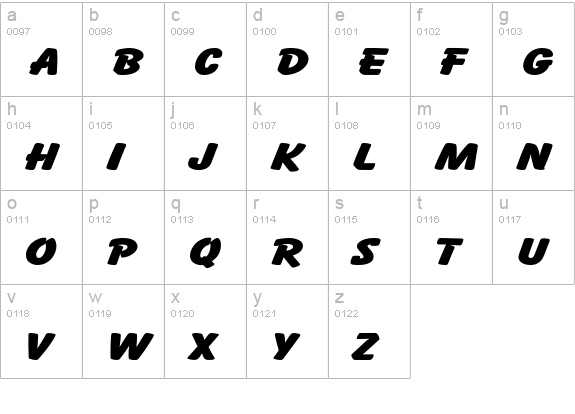
Cartoon Expanded Font Details
Cartoon Expanded is a distinctive, extended-width variant in the Cartoon typeface family \xE2\x80\x94 well suited to design and typography projects.
Introducing Cartoon Expanded font, a playful and whimsical typeface that is sure to bring a fun and friendly vibe to any project. This font features exaggerated, expanded characters that give off a cartoonish and animated feel. Perfect for children's books, comic strips, posters, and more, Cartoon Expanded is a versatile font that will add a touch of charm to your designs. Best of all, Cartoon Expanded font is available for free download at FontsMarket.com. So go ahead and add this delightful font to your collection today and let your creativity run wild with its cheerful and energetic style.